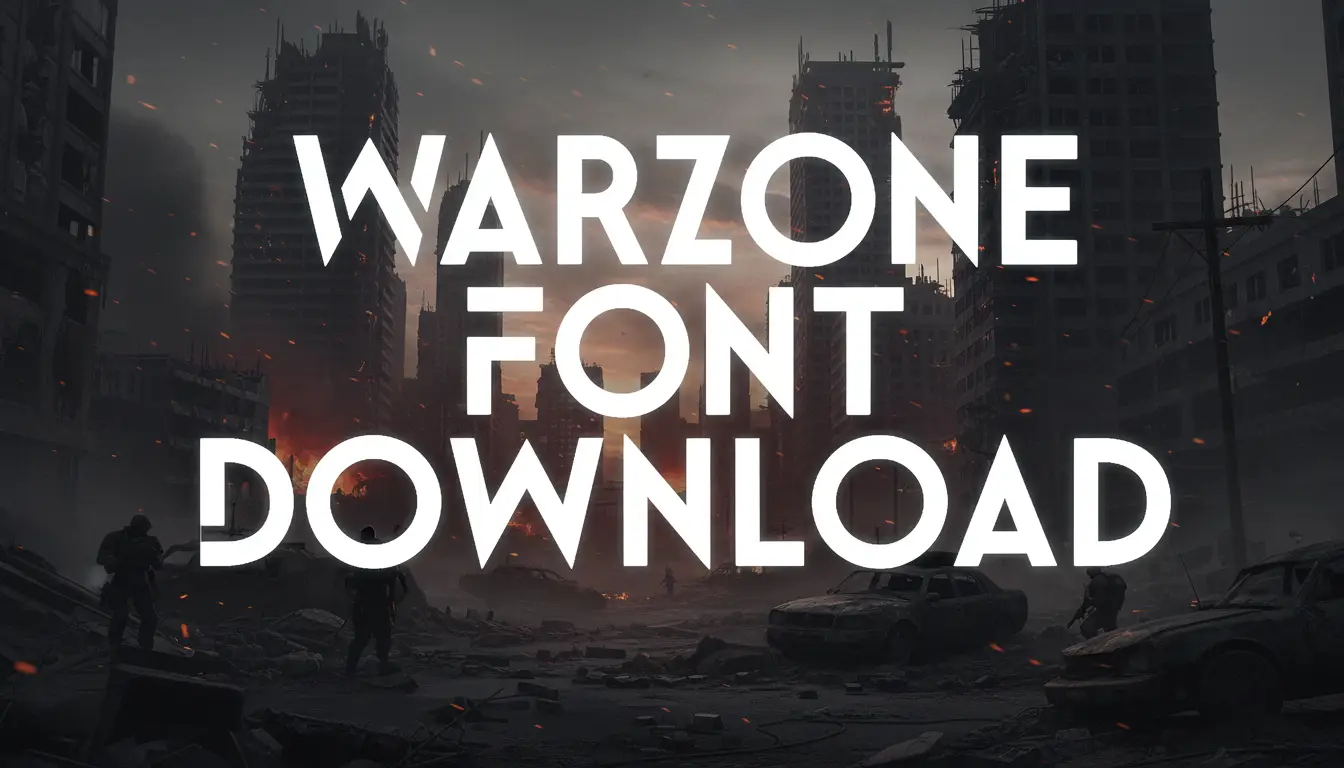
Warzone Font
Warzone is a techno font created by Ahmad Ramzi Fahruddin and released through Arterfak Project. Its angular, engineered shapes look right at home on screens and tech products. You can download it for free and test it with your own words in the preview above.
With complete upper and lowercase letters and all ten digits, Warzone is ready for real wording, not just a single headline. Everyday marks like &, !, ? and @ are there too. There are no accented letters like é or ñ, so it's best kept to English text.
Designers usually reach for fonts like Warzone when they're making gaming logos, tech branding and futuristic posters. Try it on a dark background with a bright accent color for a sharp, modern look.
No. Warzone has no accented letters such as é, ñ or ü, so it's best for English text.
A simple sans serif like Roboto keeps longer text easy to read next to it.